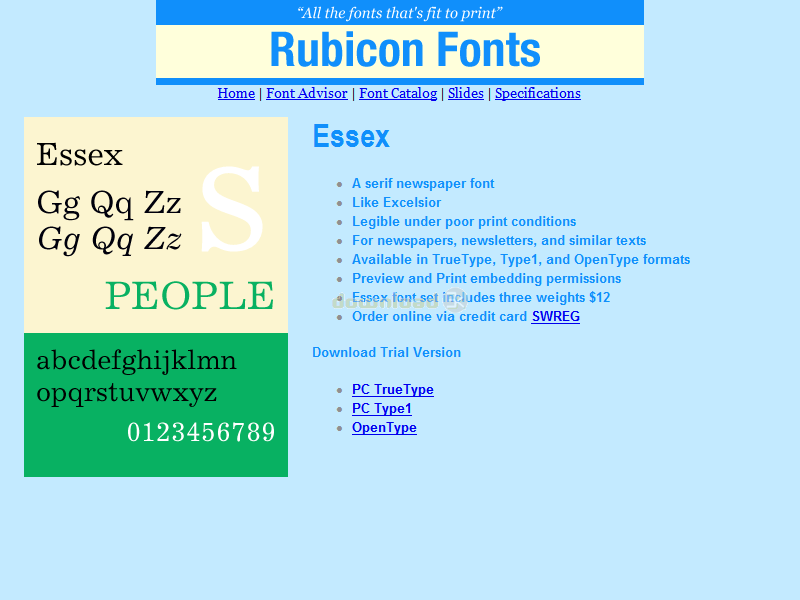
"Serif newspaper font, legible on newsprint"
Serif newspaper font with a popular look. Like Excelsior. Legible under poor print conditions. For newspapers, newsletters, and similar texts. Recommended size 8.5 points. Accurate and hinted, matching font metrics, standard character set, kerning pairs. Professional print quality for inkjet, laser, typesetter to 3500 dpi. Purchasers receive 3 font variants as follows: Roman, Italic, Bold.Requirements: Older versions of Windows require Adobe Type Manager.